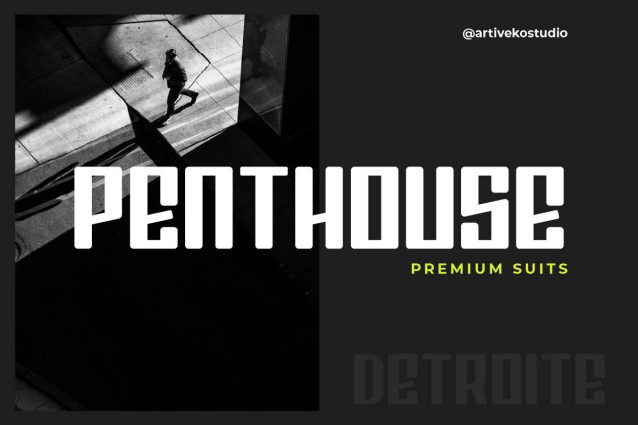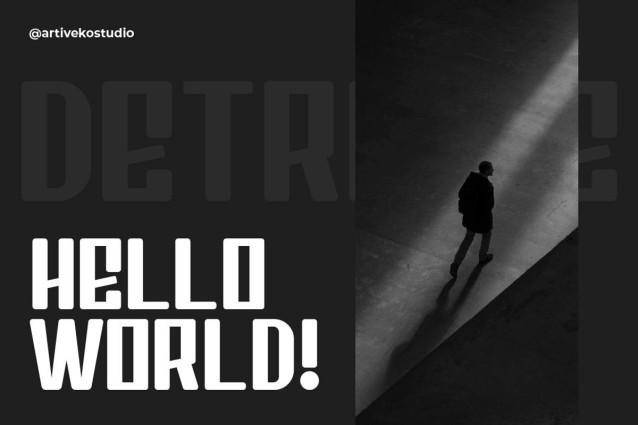
Detroite Font
Detroite Font is a condensed sans serif font built for impact. With bold strokes, tight spacing, and industrial strength in its DNA, Detroite commands attention without saying a word too loud. Its condensed form allows for powerful messaging in limited space — perfect for headlines, posters, branding, packaging, editorial layouts, and sports-inspired visuals.